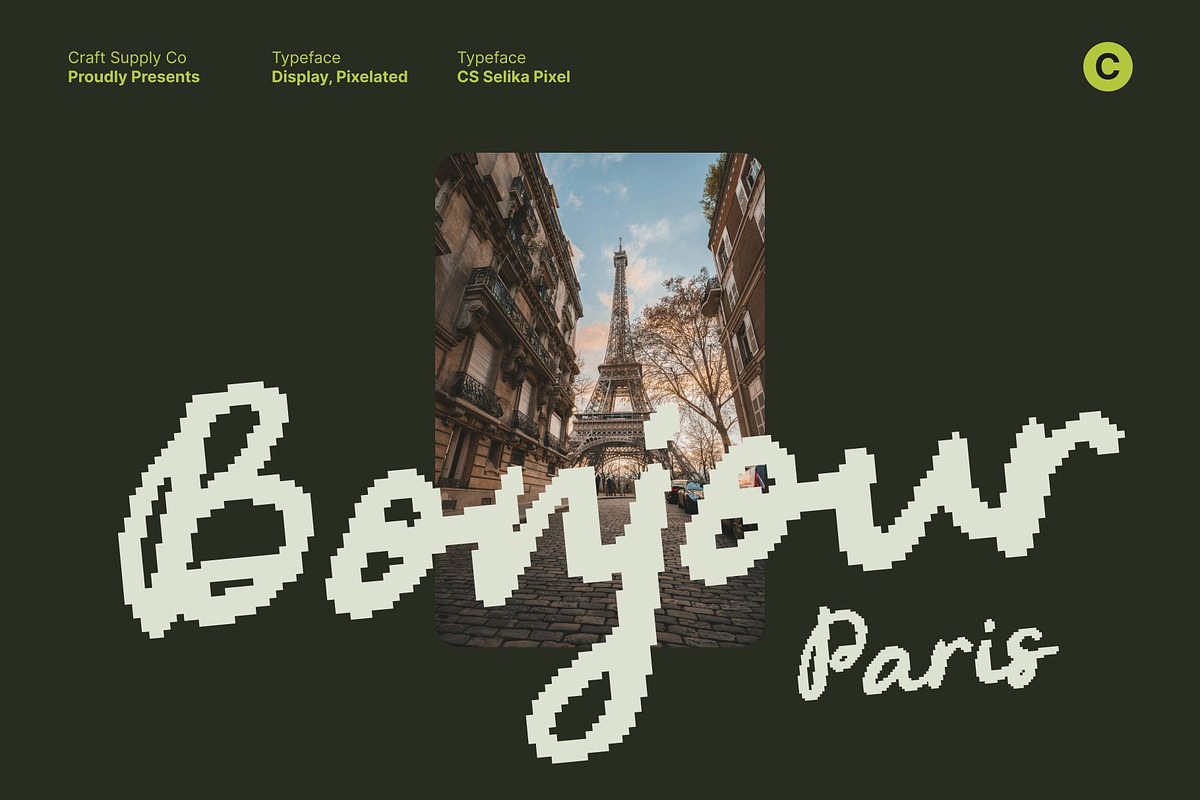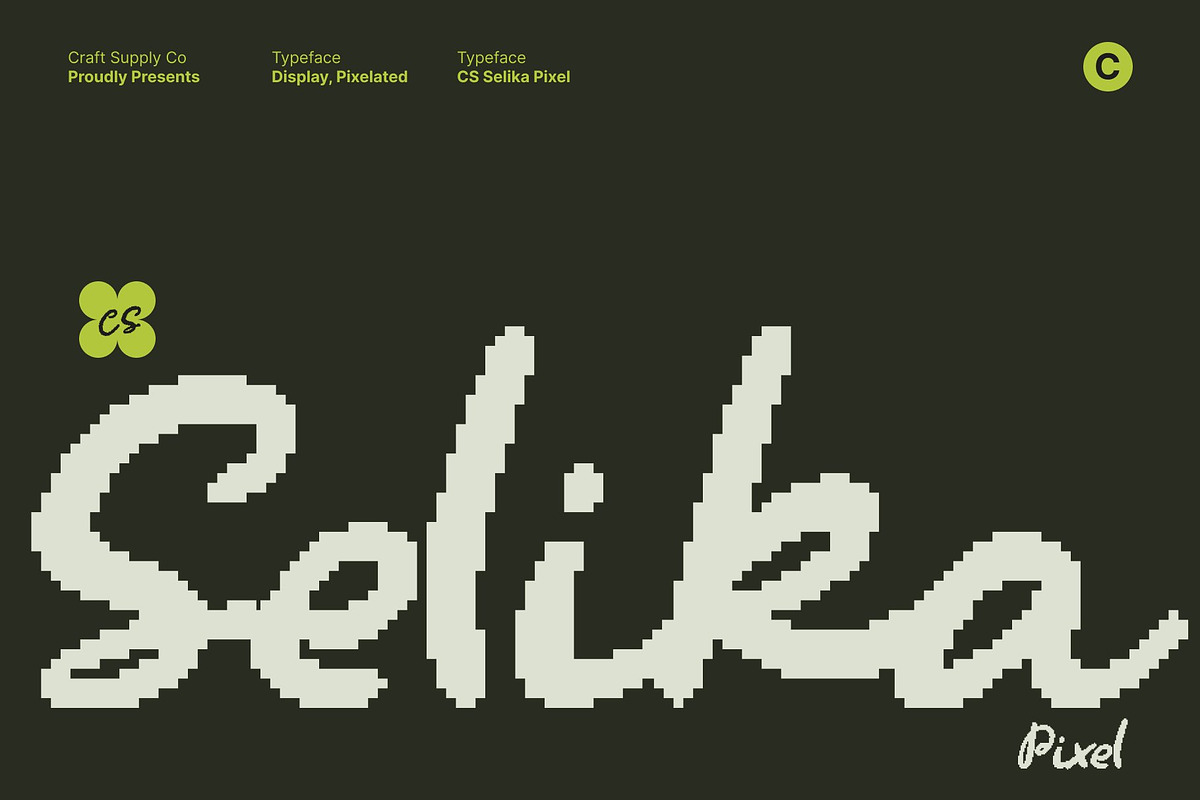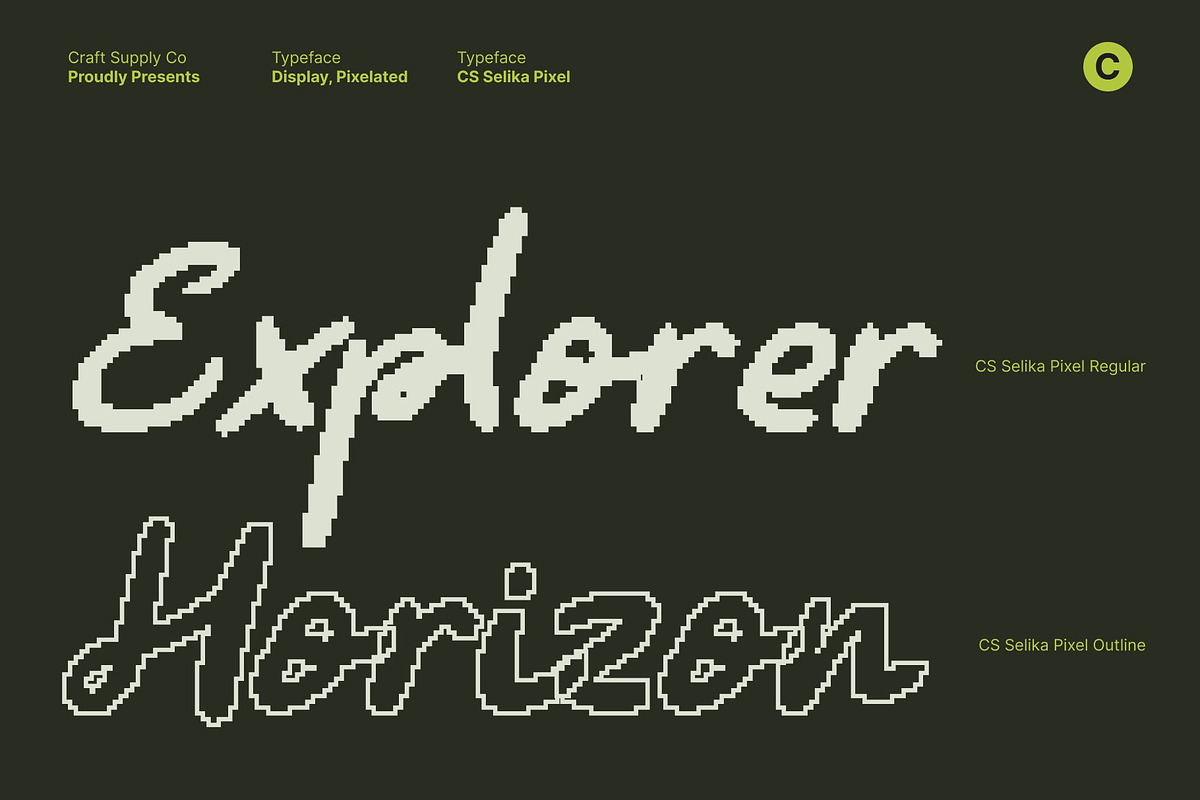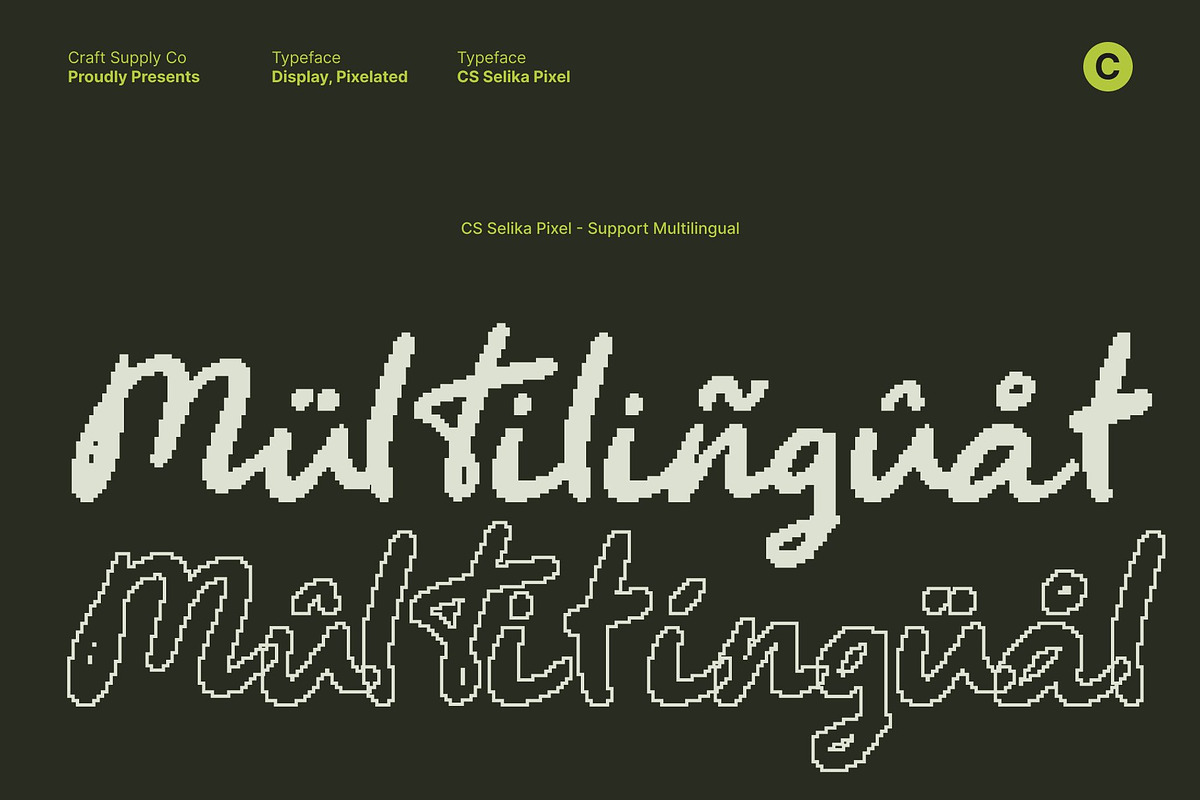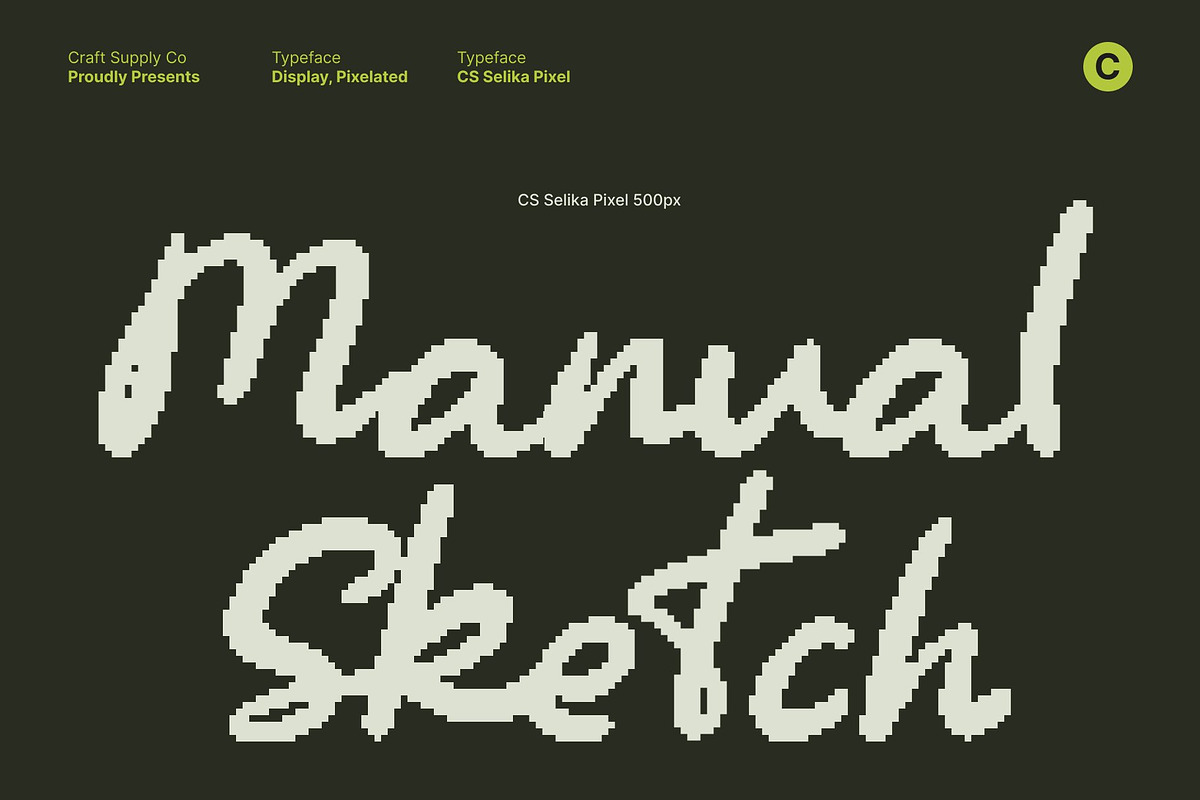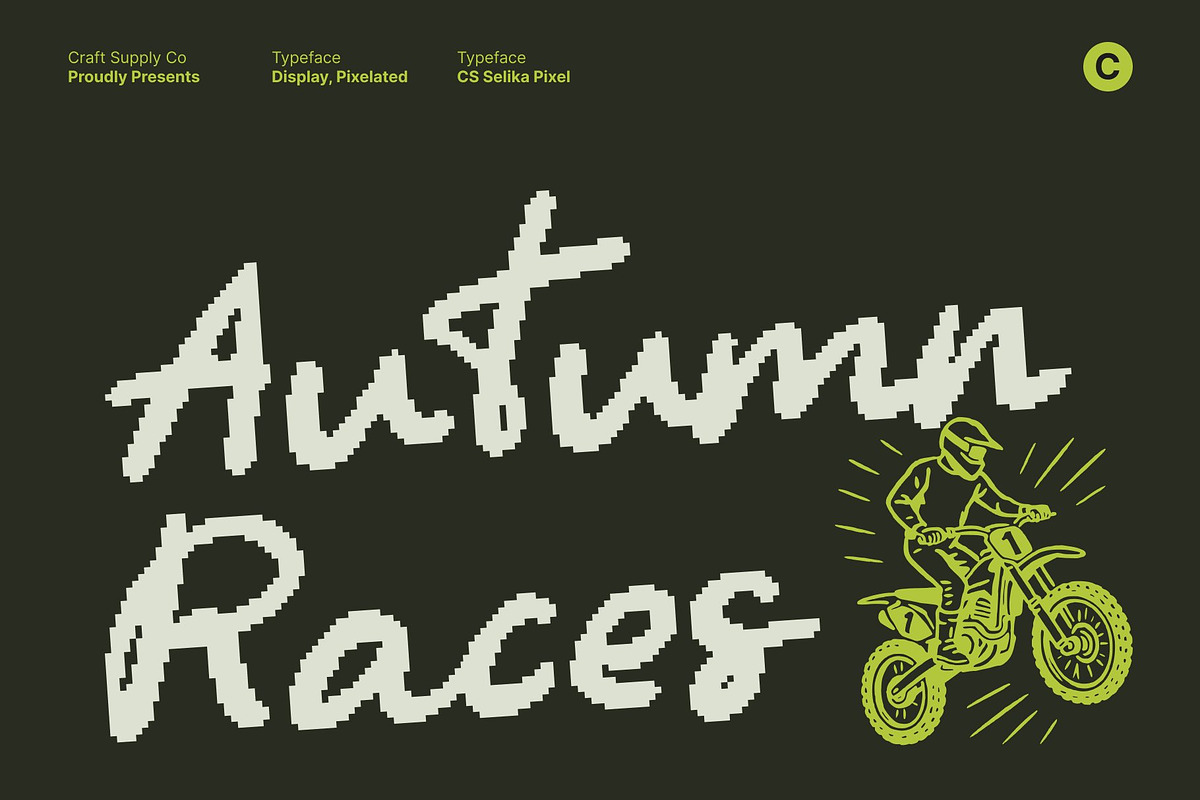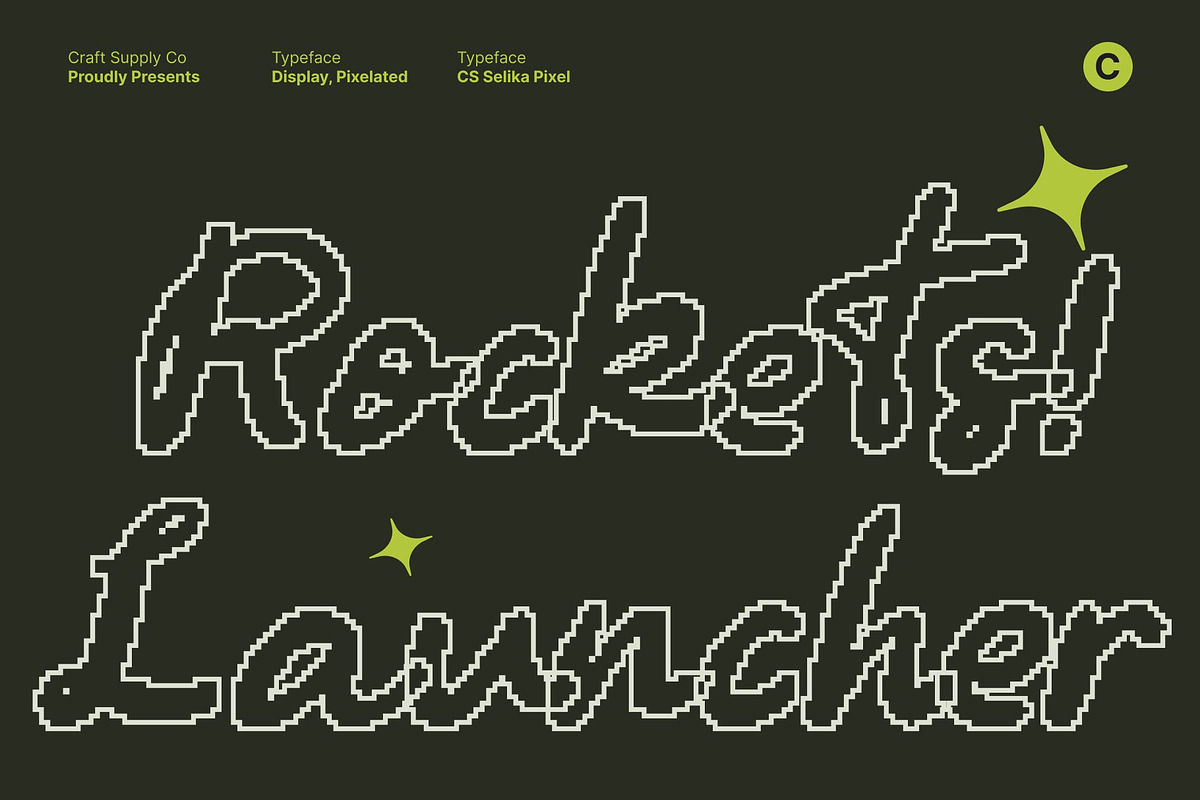
CS Selika Pixel
CS Selika Pixel – Elegant Script Reimagined in Digital Form
Delicate Handwritten Style Transformed into Pixel Precision This reinterprets graceful handwritten script through a structured pixel grid, creating a striking balance between soft expression and digital clarity. The flowing strokes are carefully reconstructed with crisp square forms, preserving the warmth and intimacy of handwriting while introducing a bold retro-tech personality. The result is a script that feels both romantic and distinctly digital.
Creative Pixel Flourishes with Retro Charm The refined flourishes are thoughtfully adapted into pixel-crafted details, giving ornamental accents a nostalgic 8-bit aesthetic. These decorative elements enhance the rhythm of the script without overwhelming its readability. Each flourish feels intentional like elegant calligraphy rendered on a vintage computer screen adding uniqueness while maintaining visual harmony.
Where Fashion Elegance Meets Old-School Technology This font blends chic handwritten sophistication with the charm of early digital typography. Its structured edges and modular curves evoke classic arcade graphics and retro display systems, while still carrying a modern, fashion-forward elegance. This fusion creates a visually compelling contrast that instantly captures attention.
Eye-Catching for Digital, Retro, and Creative Branding Perfect for branding, invitations, fashion graphics, pixel-art compositions, tech-inspired packaging, and nostalgic UI designs, this font stands out across both screen and print. It brings personality to modern projects while honoring the aesthetic of old technology.
- CS Selika Pixel Regular
- CS Selika Pixel Outline